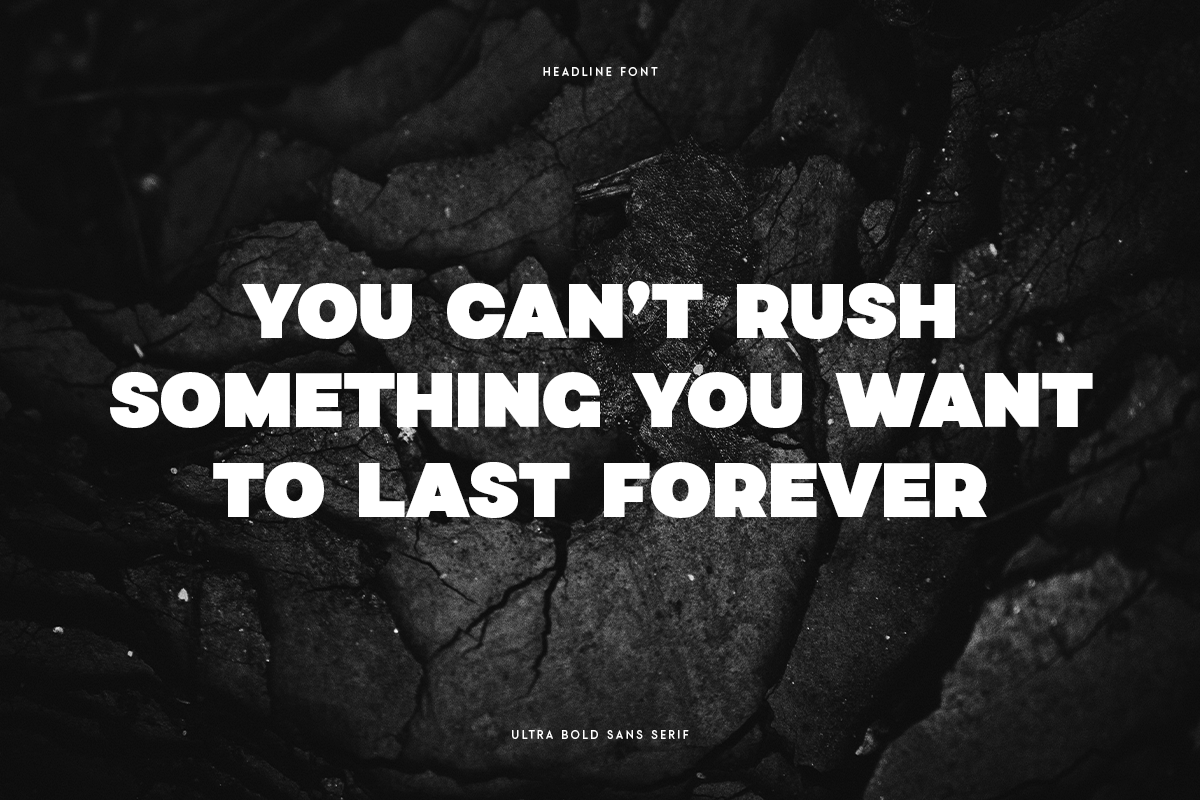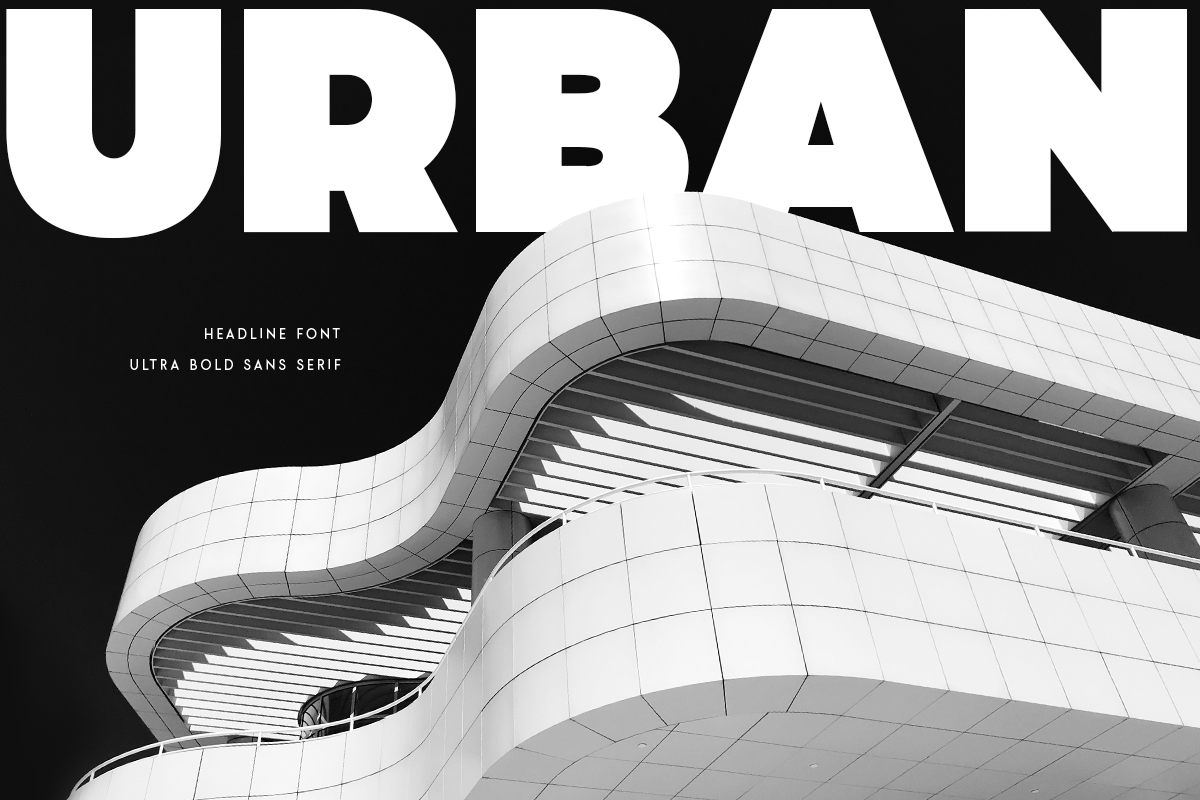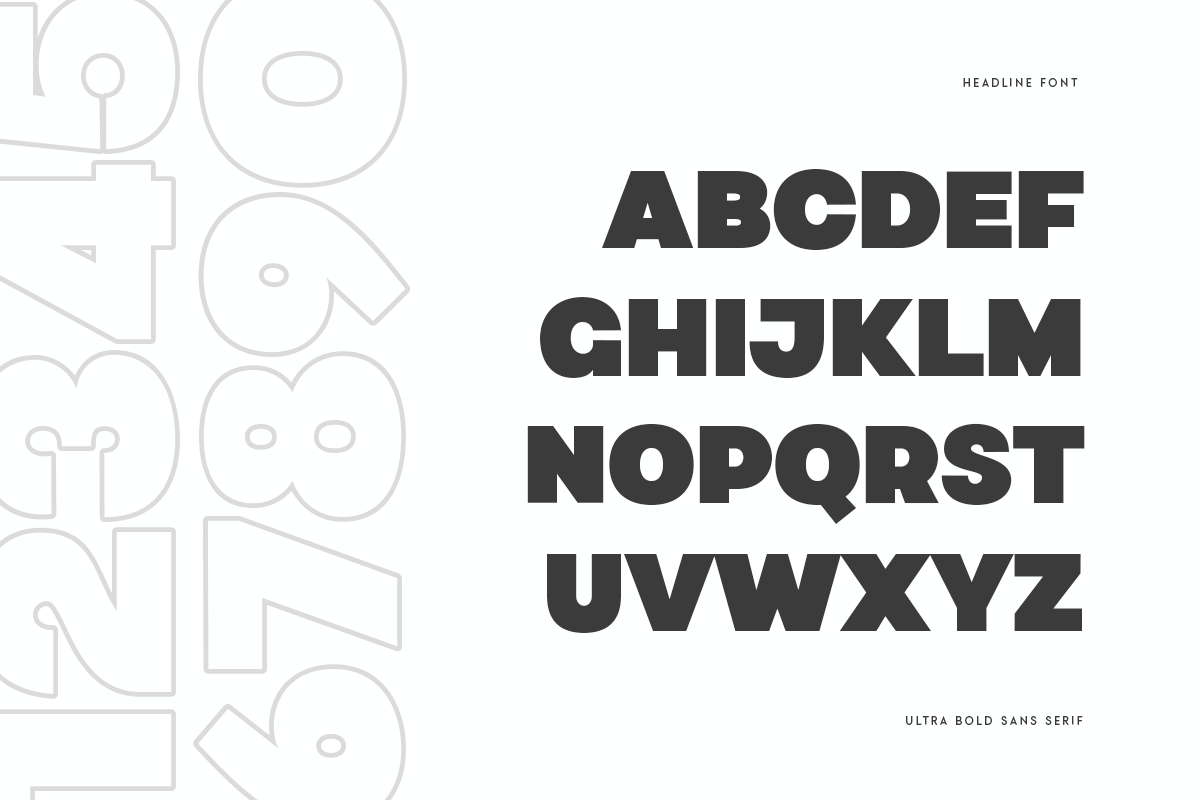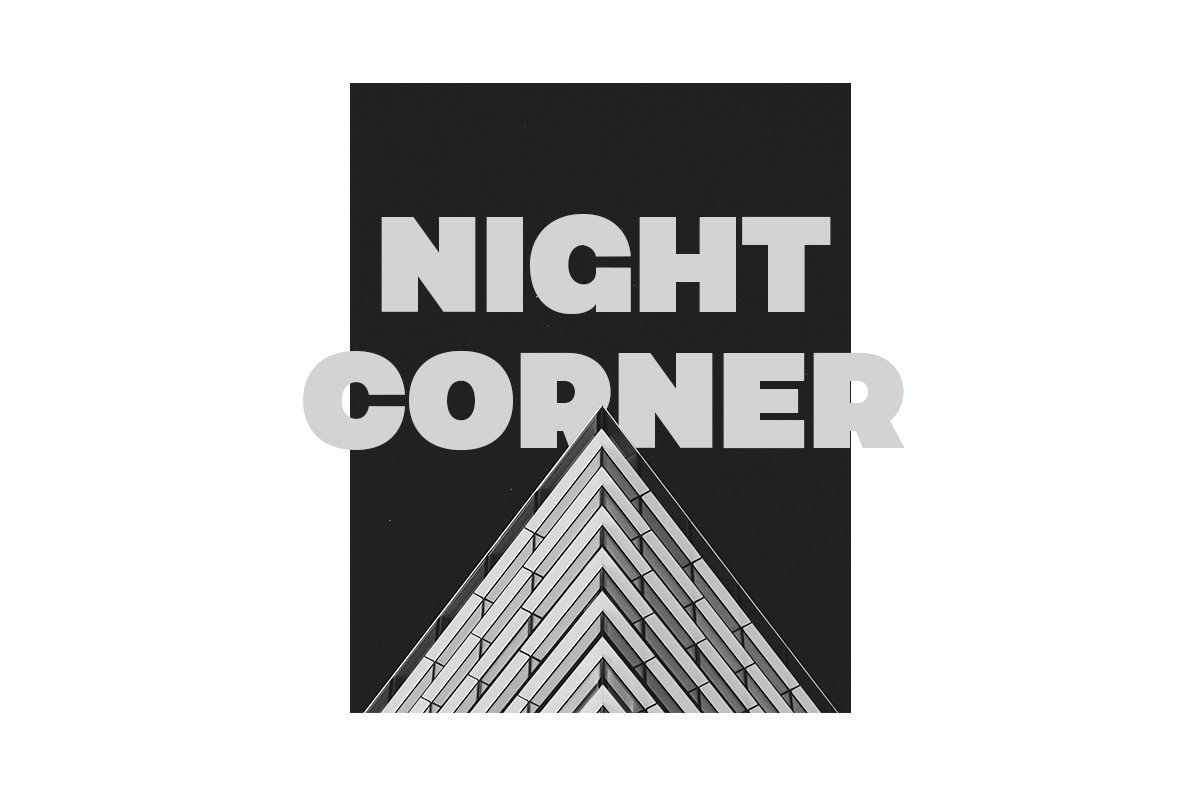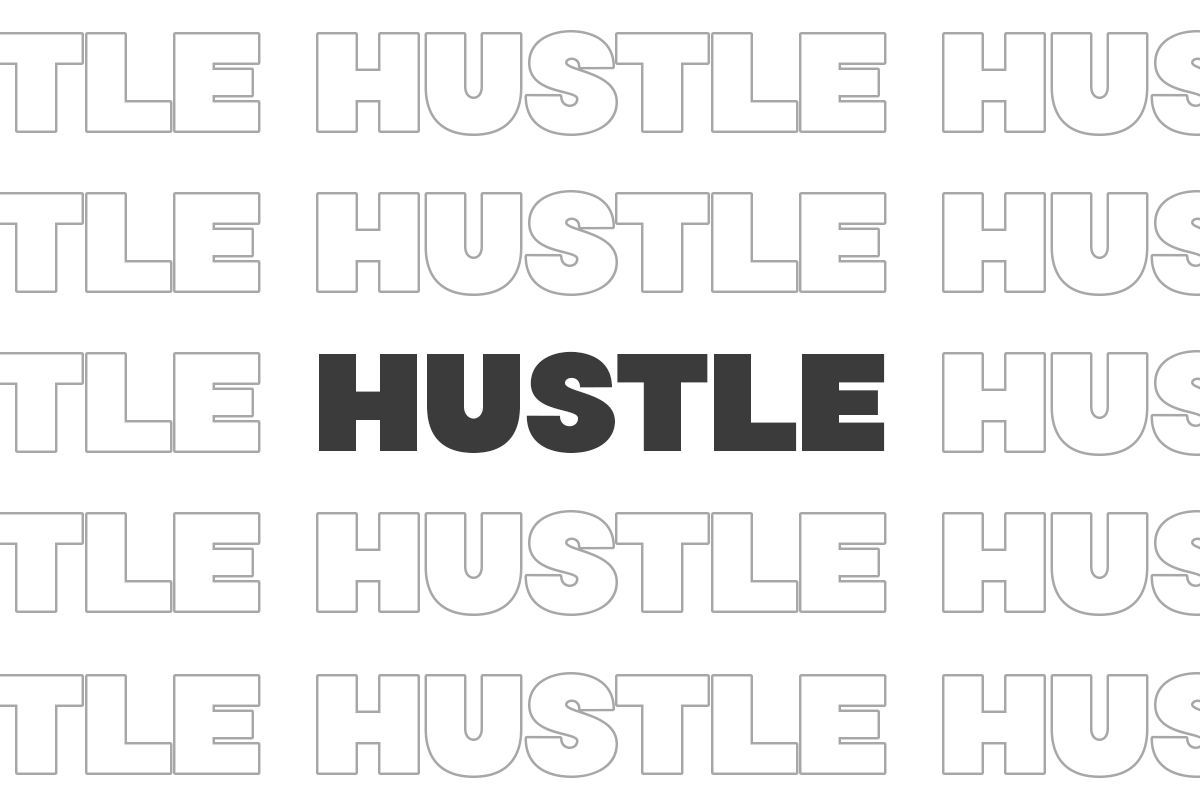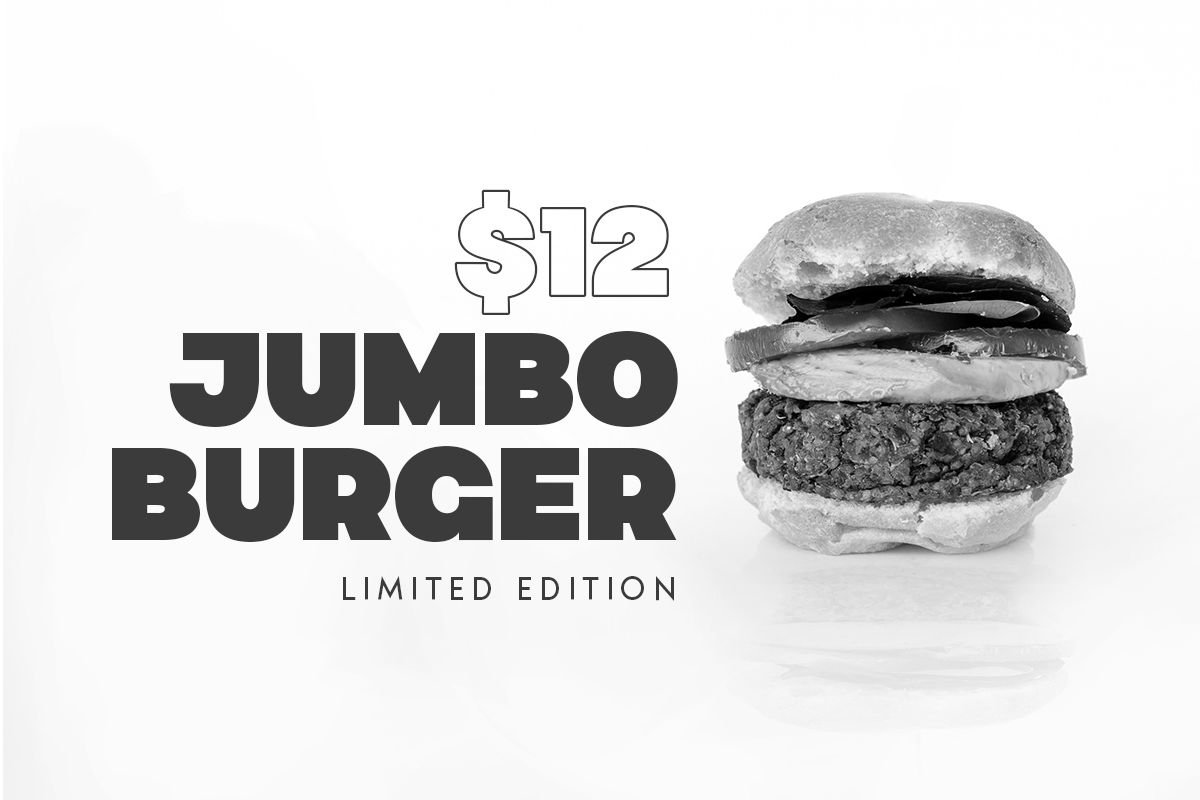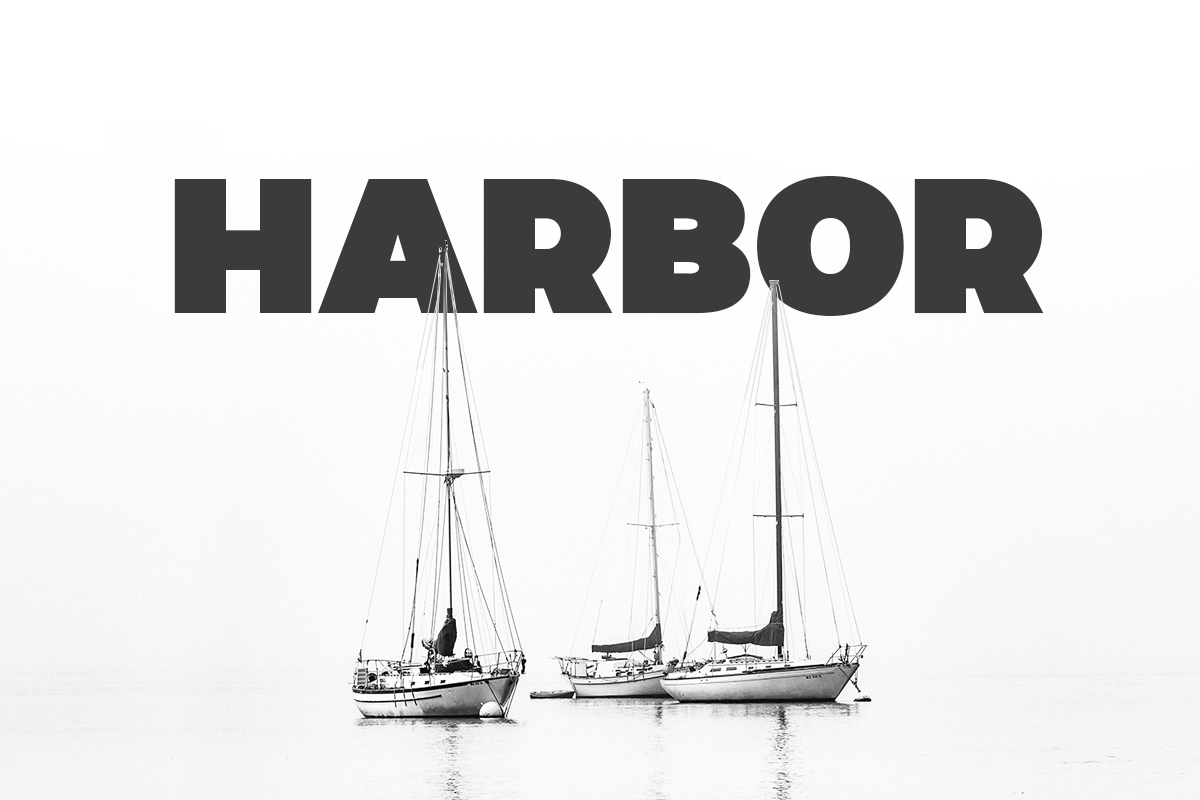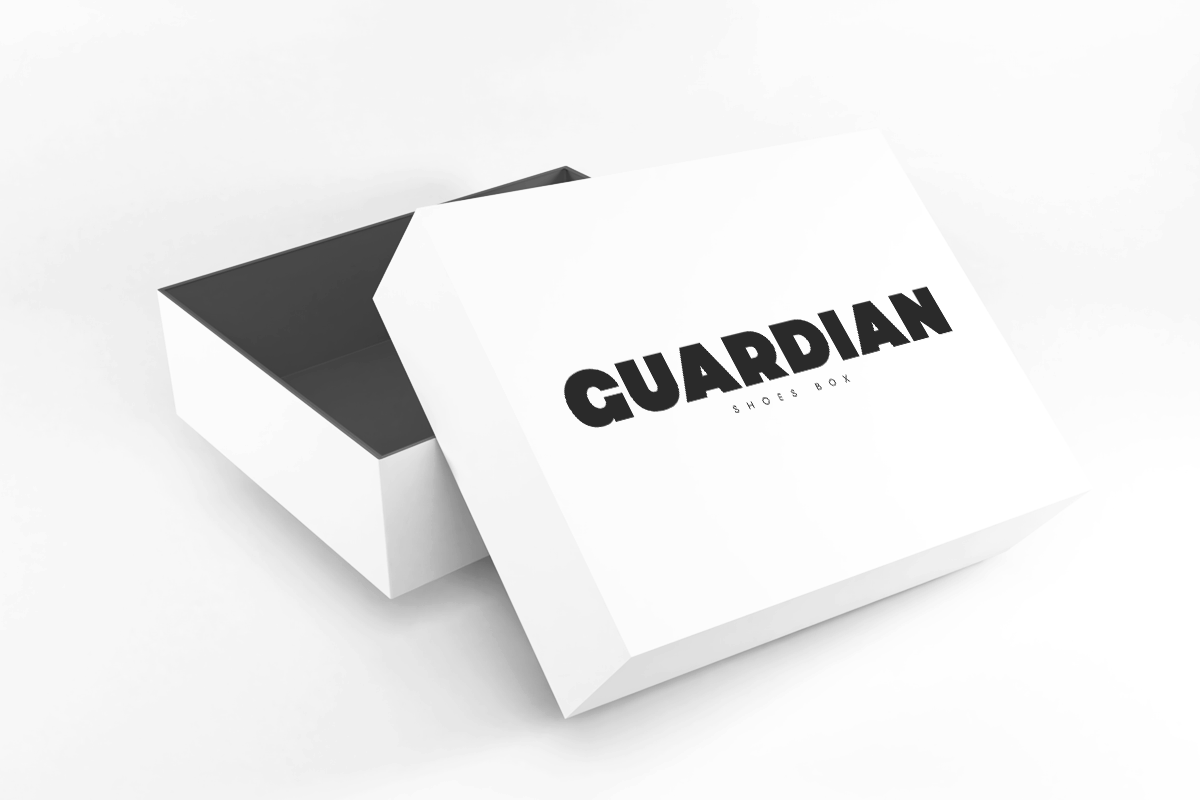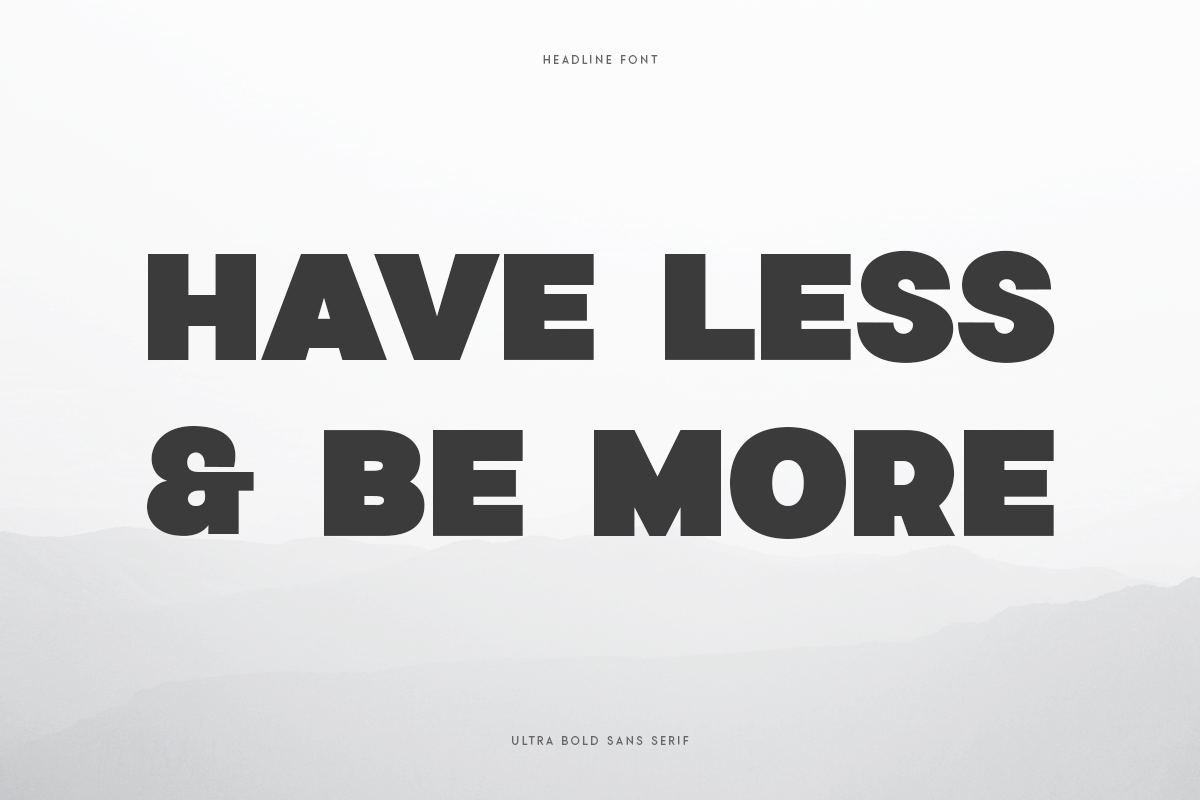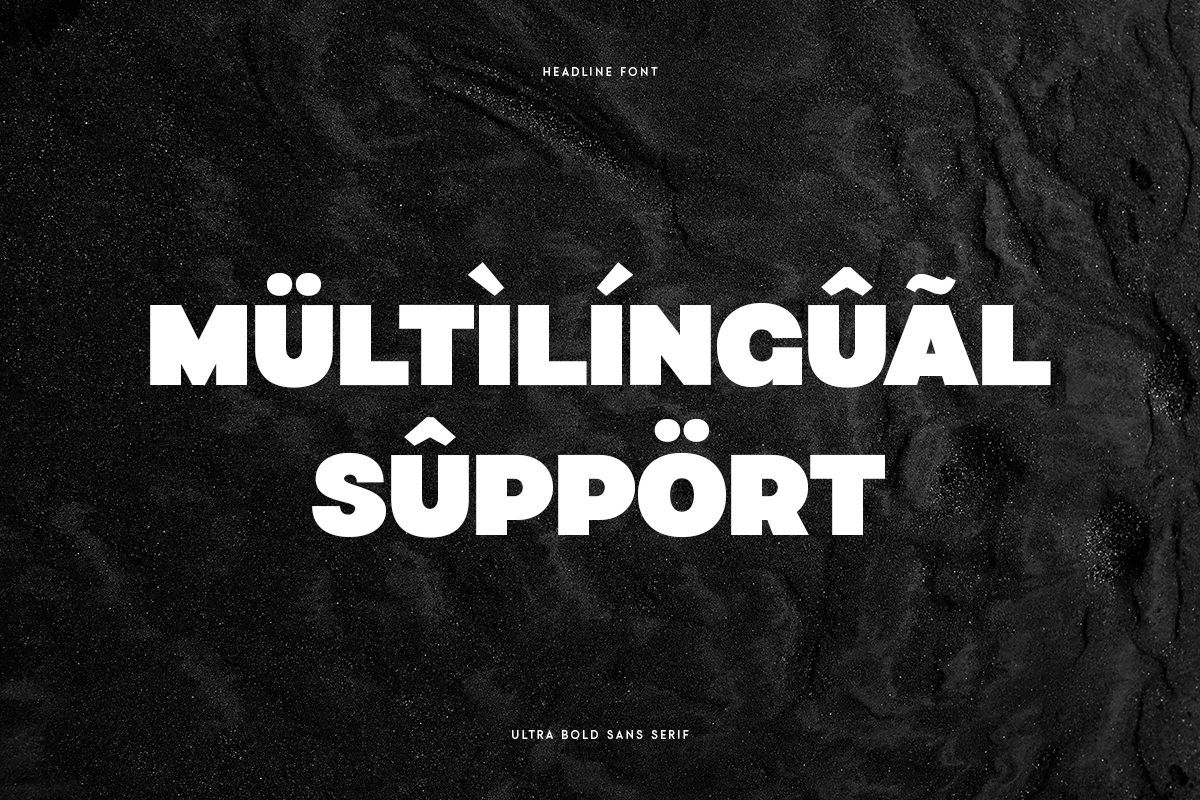
HEADLINE
-Ultra Bold Sans Serif
Headline is a Ultra Bold Sans Serif perfect for your Headline Needs
A new Sans Serif that we created special for Headline, Title and more stand out typography needs, with extra outline that will add your variations. It's so perfect to add your style and headline overview. And specially for Headline font, we crafted for minimalist style and clean feels so enjoy to create any project that will show your main idea out.